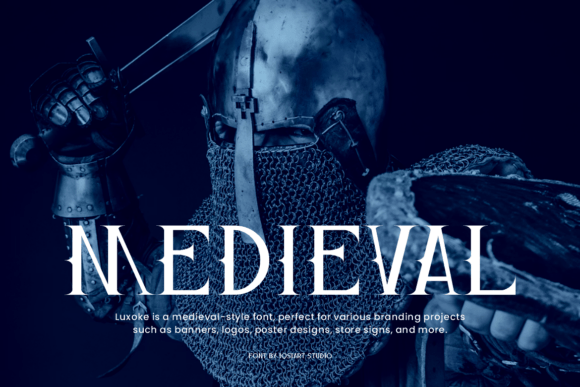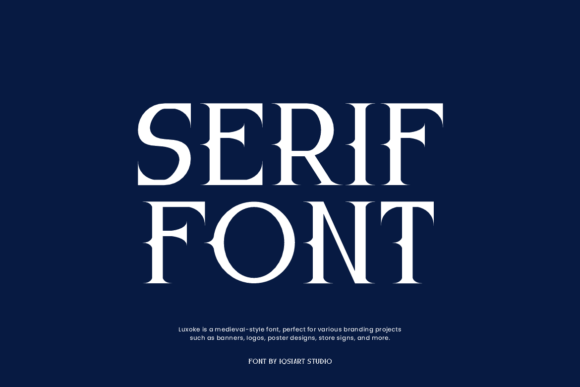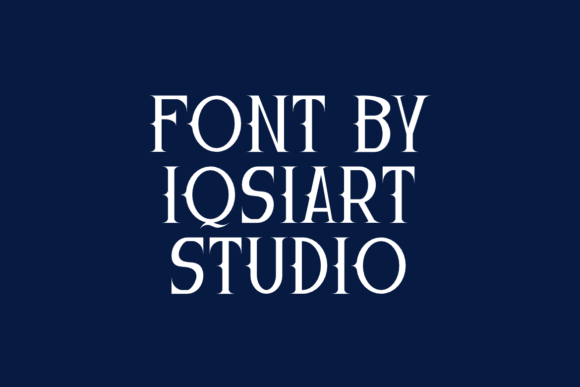
Introduction to Luxoke Font
Luxoke Font is a cool serif font with a historical vibe.
Luxoke Font offers exceptional quality and versatility, making it a valuable addition to your design toolkit. Whether you’re creating for personal projects or commercial use, Luxoke Font delivers professional results.